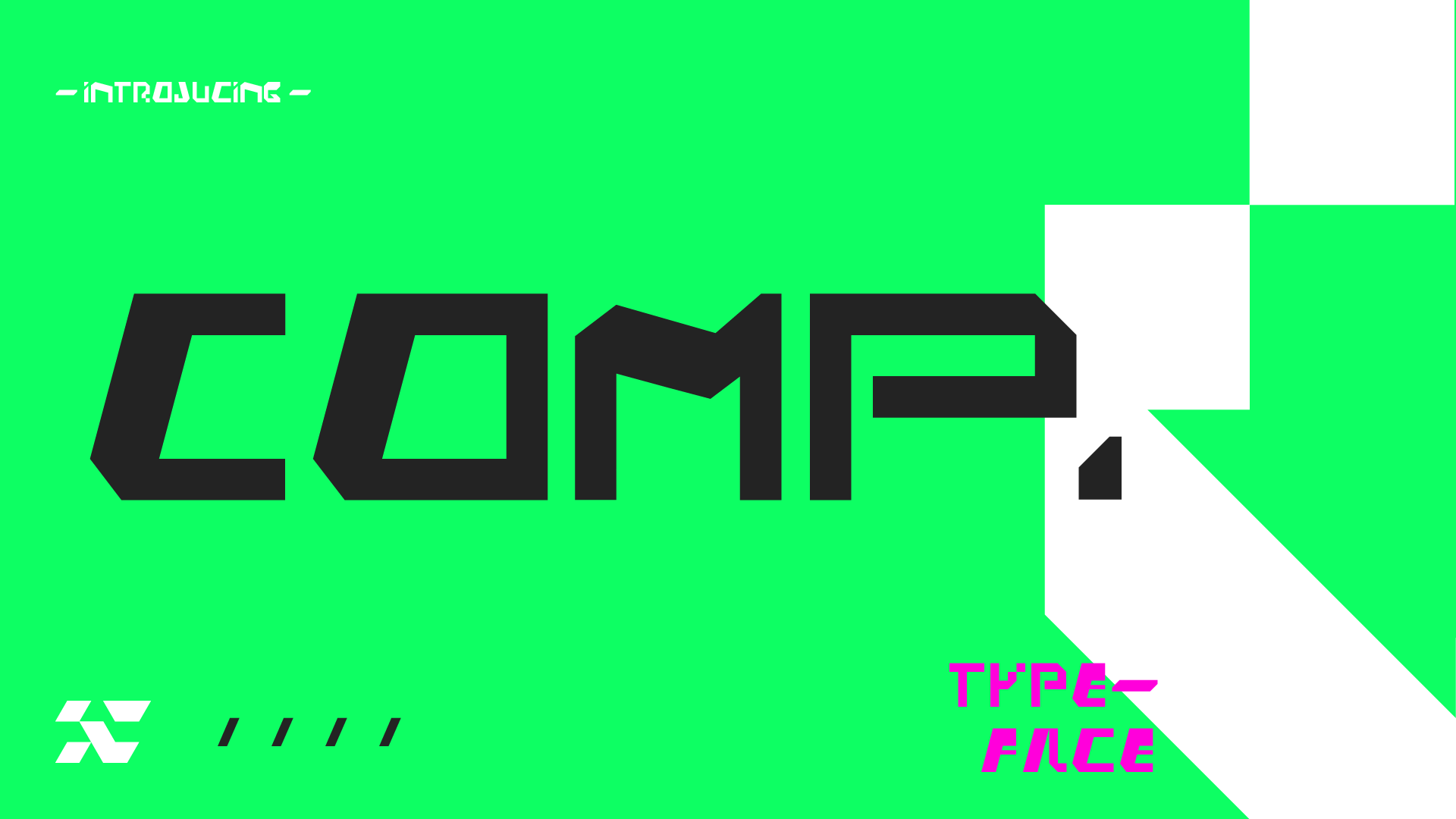
COMP. Typeface
A modern and futuristic typeface that draws inspiration from cyberpunk movies, arcade games, and pixel art. With its bold and angular letterforms, COMP. exudes a retro-futuristic vibe that is both playful and edgy. This typeface is perfect for designs that require a touch of nostalgia and a hint of the future, such as video game graphics, sci-fi posters, or tech-oriented branding. Whether you're designing for a cyberpunk universe or a modern tech startup, COMP. is the typeface that will make your design stand out.
- Make it spicy. Elongate the characters